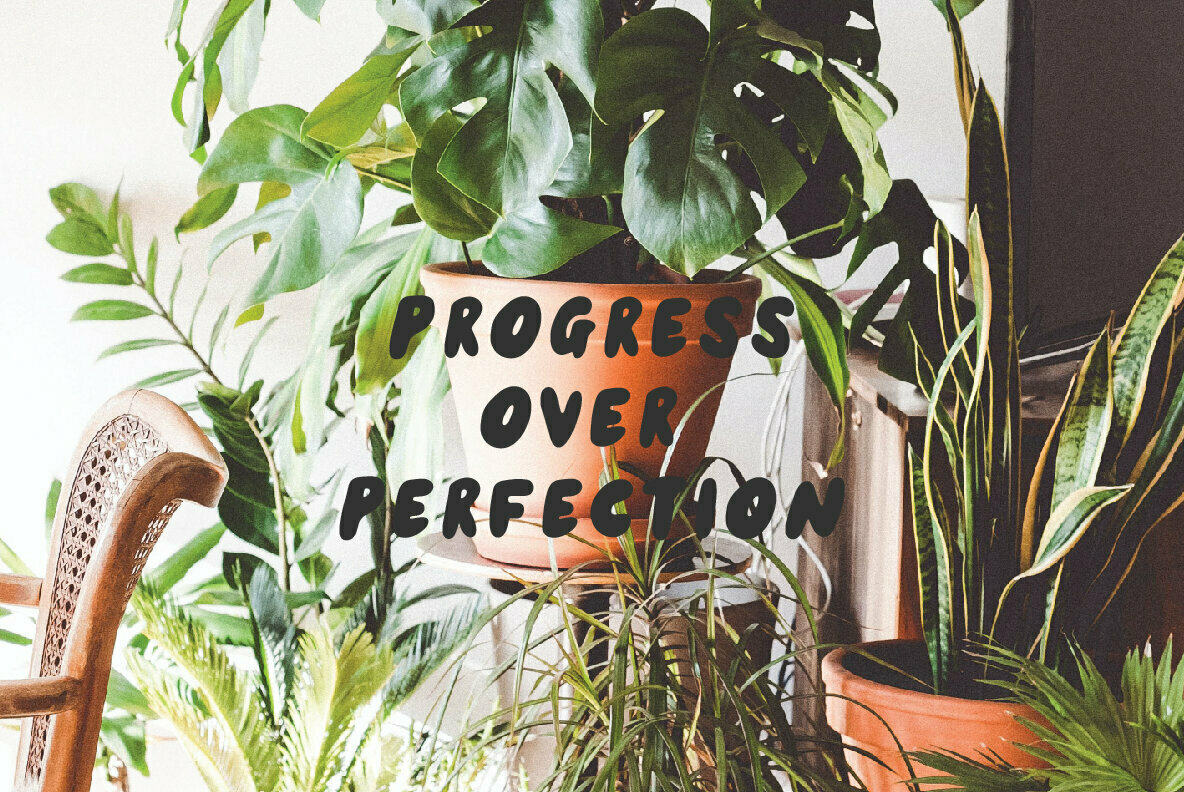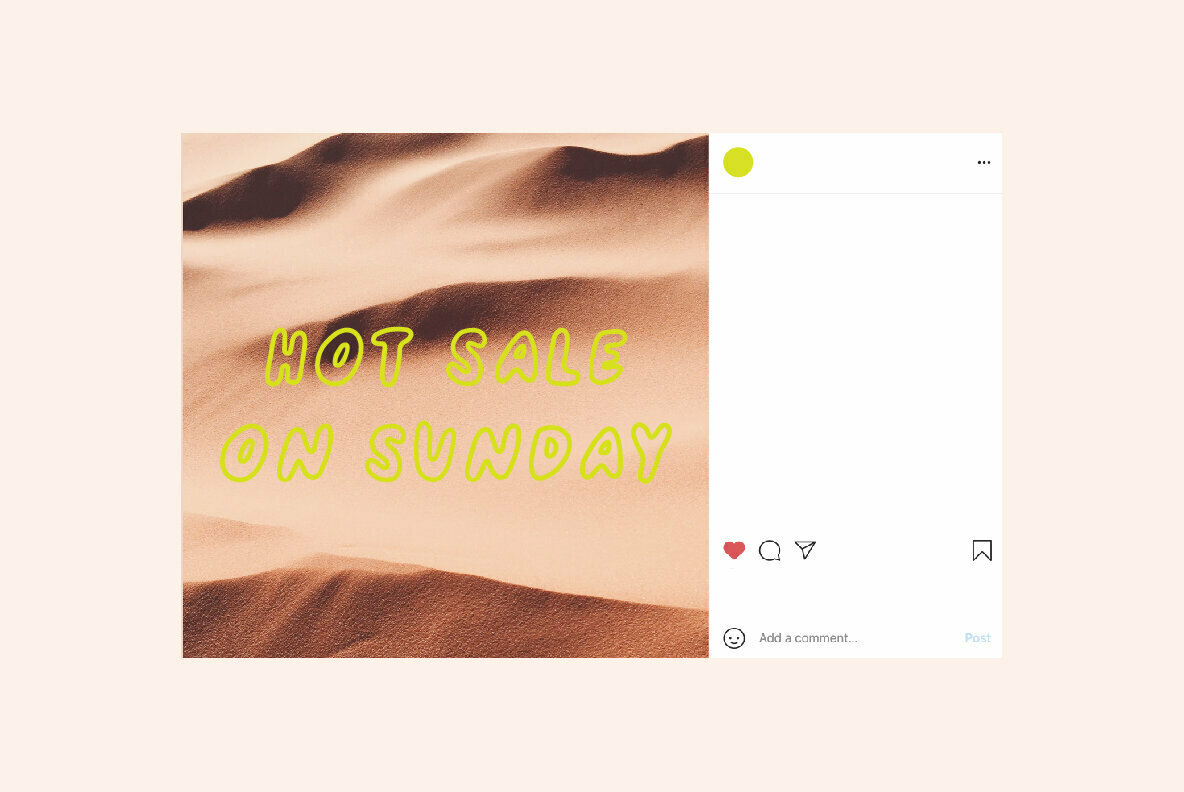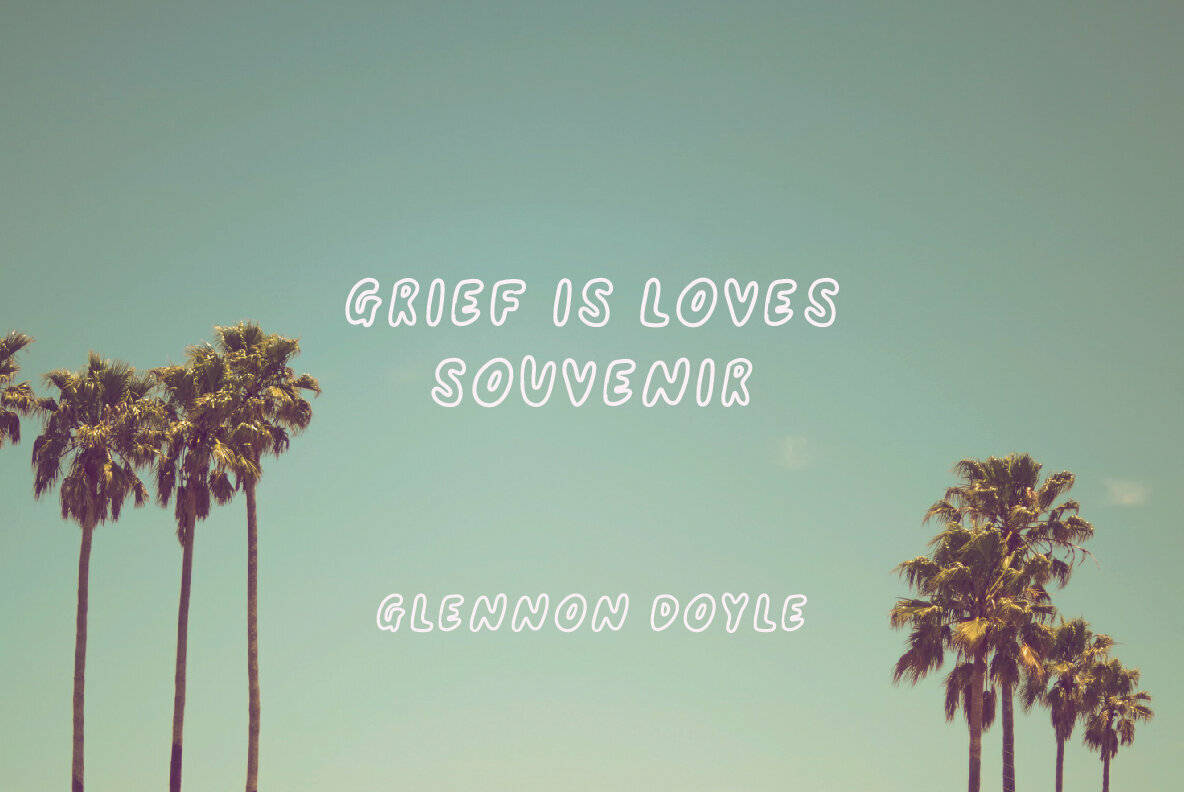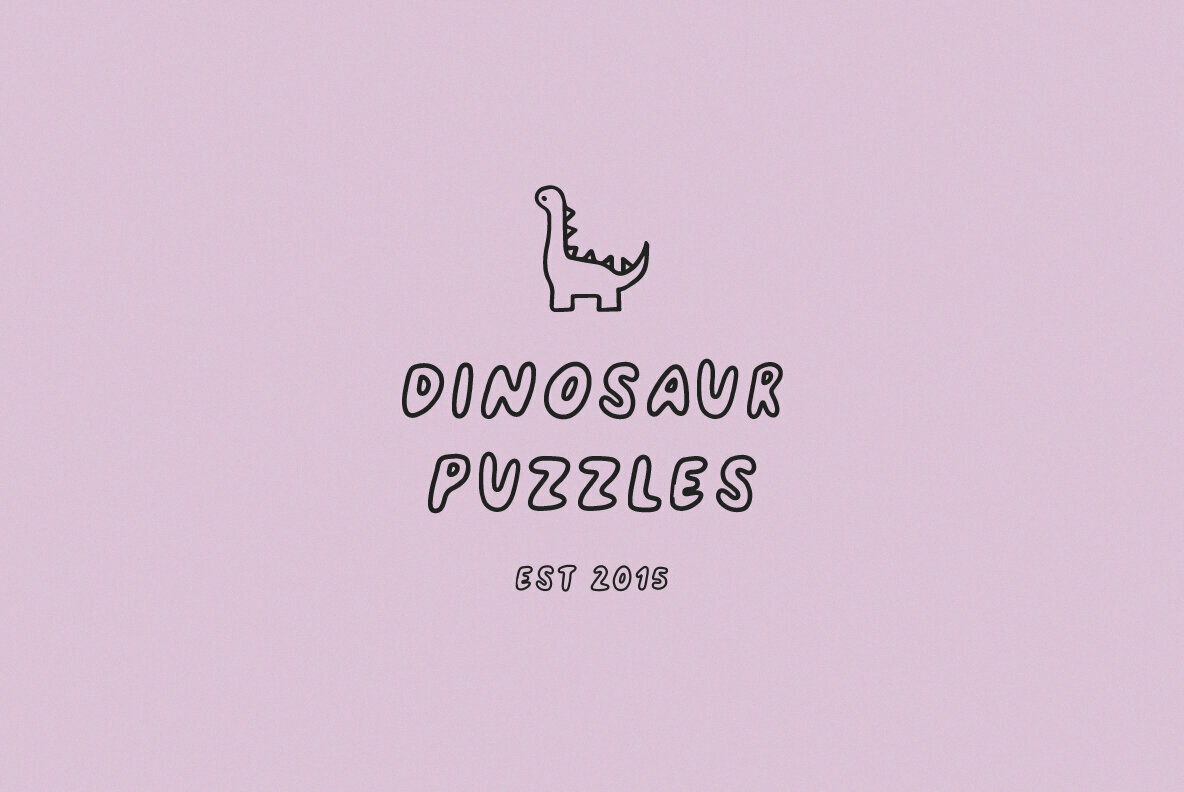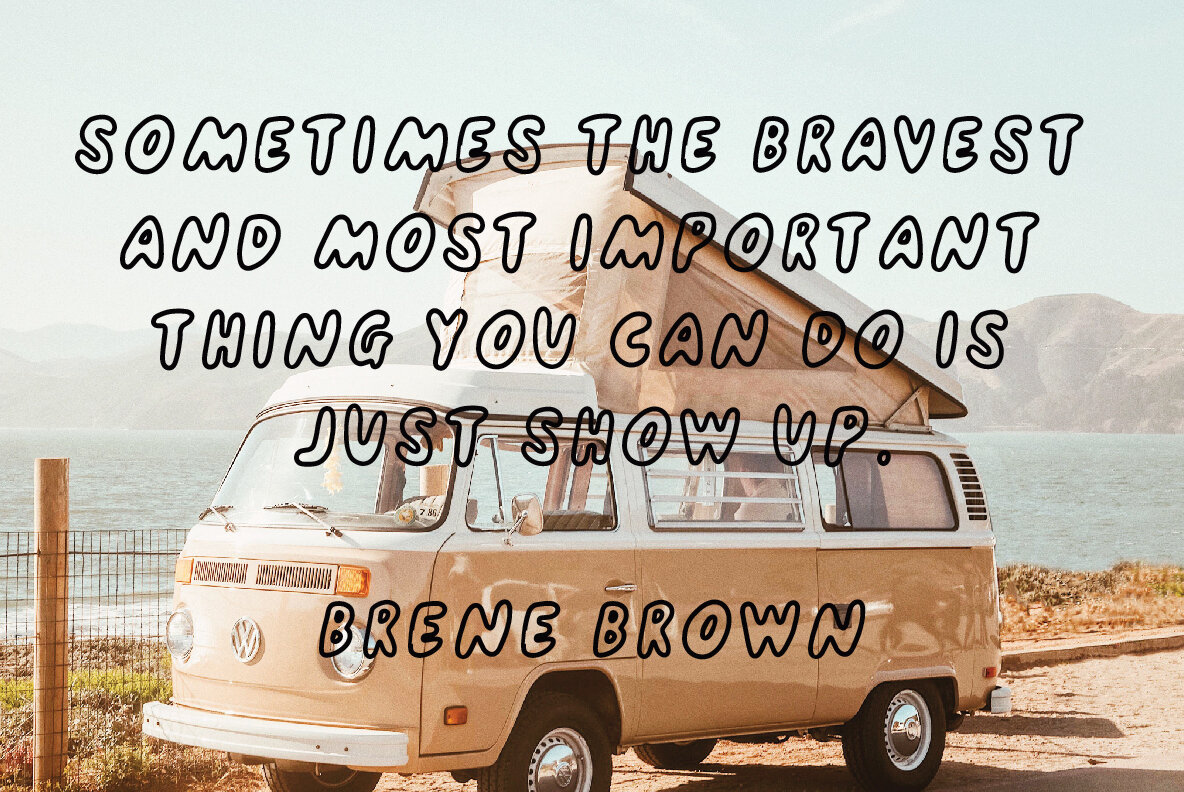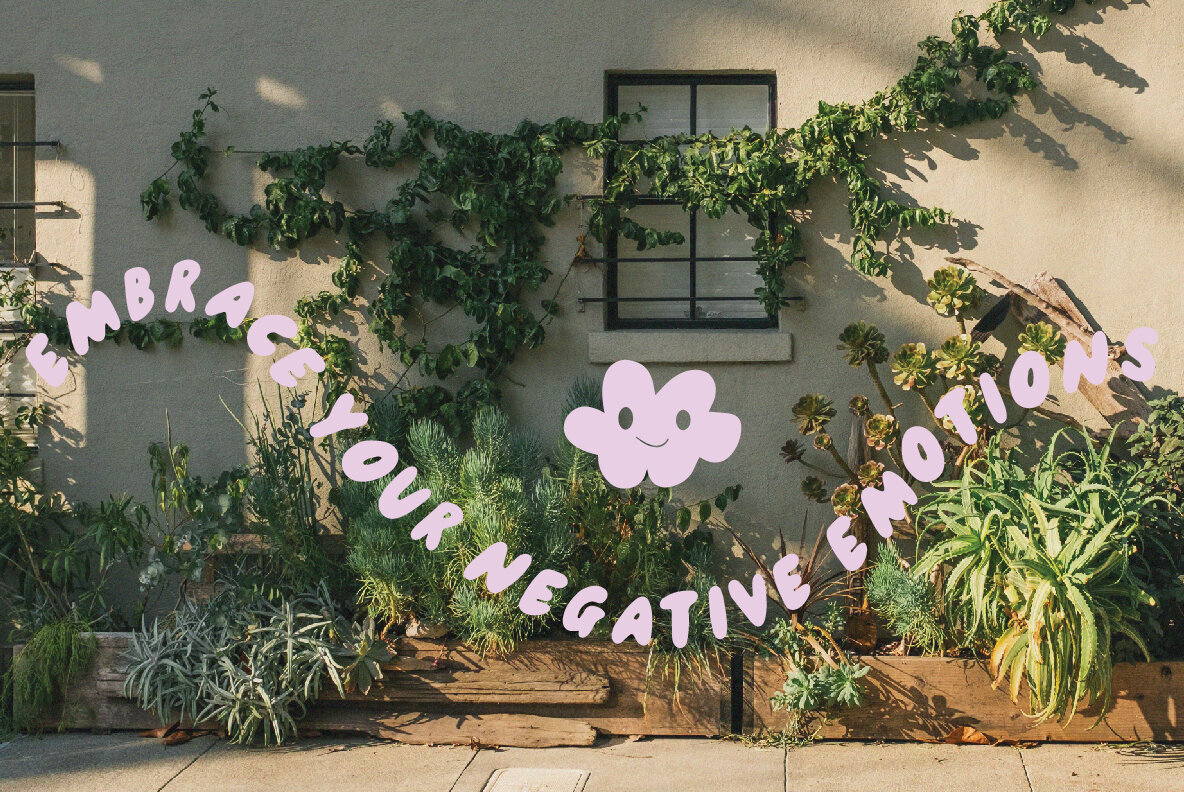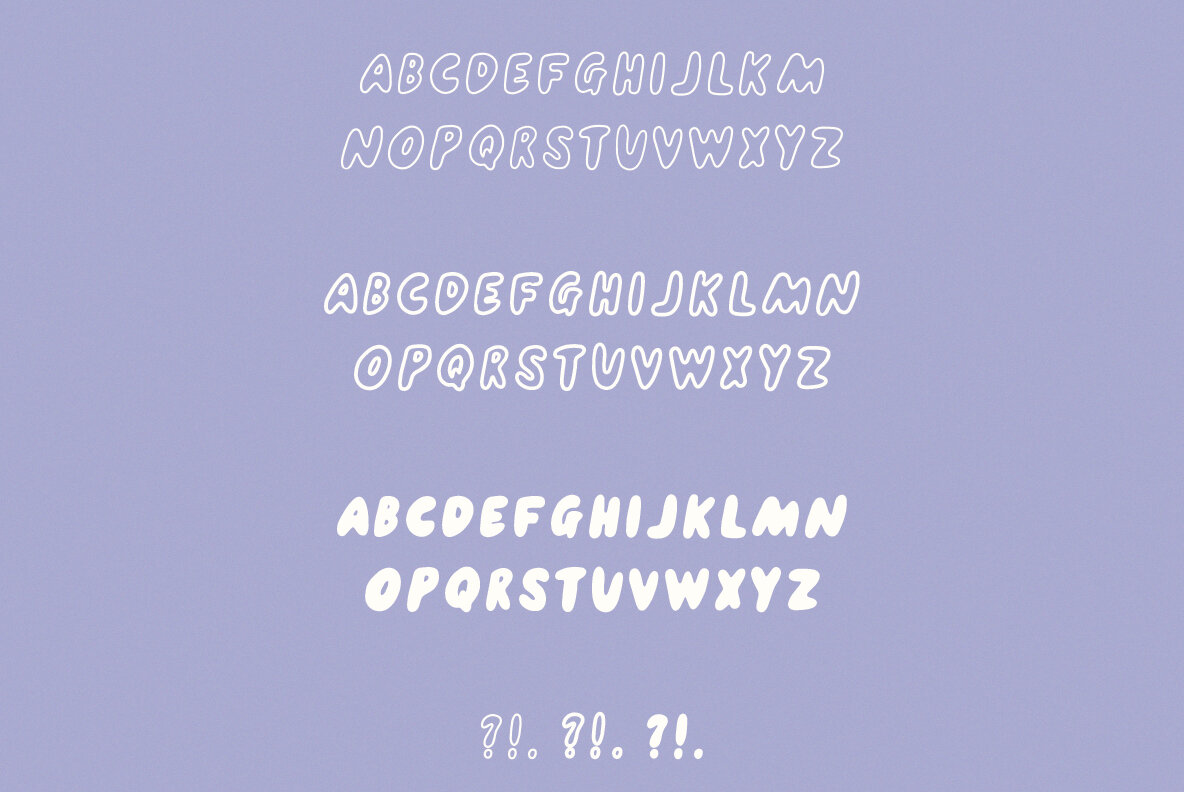
Vanilla Slice Font
The Vanilla Slice font, featuring a playful handwritten sans serif style, embodies a charming blend of whimsy and modern design. This font excels in adding a distinctive touch to any creative project, making it ideal for those who seek to infuse originality and character into their work. Perfect for:Vanilla Slice: A Handwritten Sans Serif With Whimsy